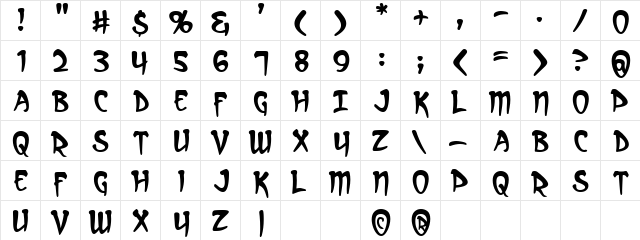
Arcanum Regular Font Preview
Arcanum Regular
Design Context for Arcanum Typeface
Arcanum is a composed and adaptable typeface that performs quietly and consistently across a wide range of design contexts.